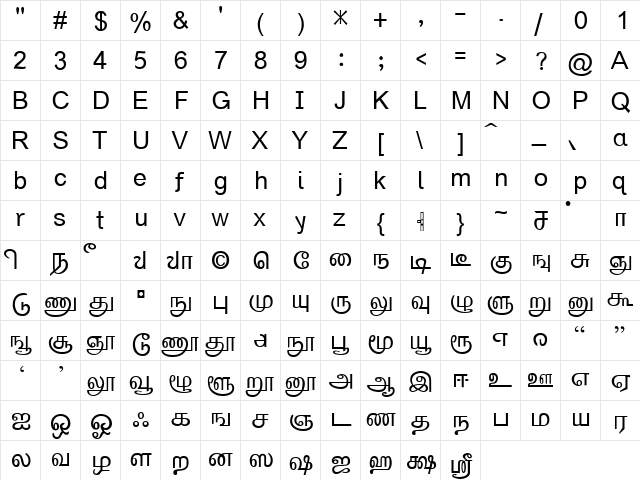
TabAvarangal2 Regular
| Designer | Sinnathurai Srivas |
TabAvarangal2 offers clean, dependable letterforms without strong stylistic allegiance, making it a practical choice for designers who need flexibility.